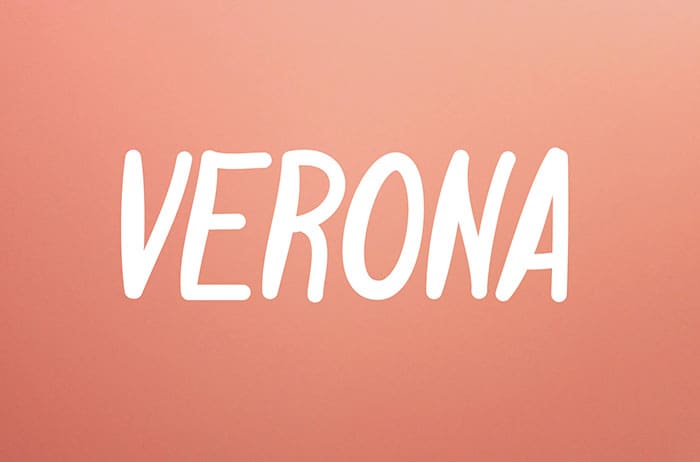
Verona Display Font is a font that works on every occasion. It has a surprisingly good readability and legibility for script font. Also, the other great advantage is that it works well in tight spaces especially if you need to use long words in your designs. Thanks to Vladimir Carrer for sharing this font! Take a look at this portfolio for more of his stunning fonts.